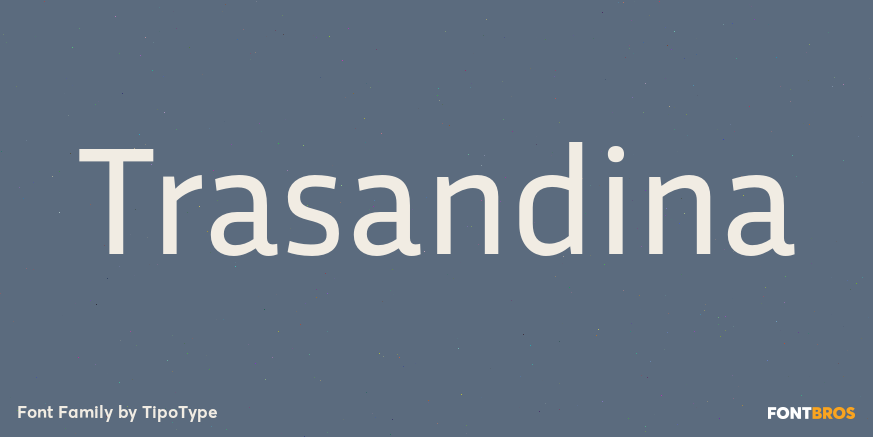
Trasandina
Trasandina is a very unique font-family: a modern, versatile, workhorse typeface with a special personality, given by the mix of humanist and geometric models, remaining far from both extremes. This typeface has 9 styles plus their matching italics,…